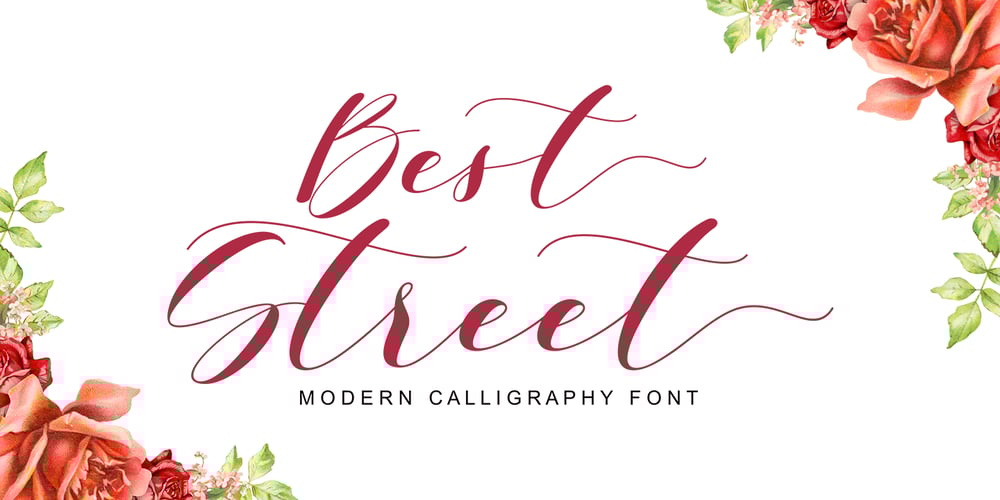
Best Street Font Family was designed by khaidir and published by Gatype. Best Street contains 1 styles and family package options. Best Street is a new variant of handcrafted script typeface. present to you to complete your collection of script fonts.This typeface has been enriched with additional alternative characters for up to 403 glyphs. Hope it helps to capture the soul of any design. Finally, there are no words to say other than “Succeed and enjoy.” Best Street is coded with PUA Unicode, which allows full access to all additional characters without having to design any special software. Mac users can use Font Book, and Windows users can use Character Map to view and copy any additional characters for pasting into your favorite text editor / application.How to access all alternative characters using Adobe Illustrator:https://www.youtube.com/watch?v=XzwjMkbB-wQhttps://www.youtube.com/watch?v=Go9vacoYmBw